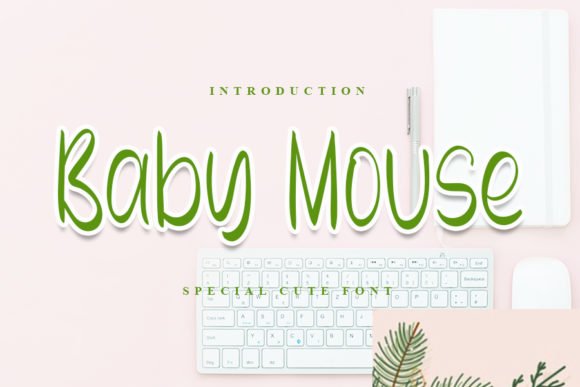
Meet Your New Best Friend: Baby Mouse Font
Do you remember the thrill of discovering that perfect font for a project, only to have it completely transform your design and make it shine? It’s a feeling that never gets old, and it’s exactly what happens when you meet the Baby Mouse Font.
This adorable display font is a tall and friendly face that’s sure to bring a smile to your readers’ faces. With its quirky charm and authentic feel, Baby Mouse Font is the perfect choice for a wide range of informal contexts, from social media graphics to children’s book illustrations. As a designer, you’ll love its versatility and the way it adds a touch of whimsy to your work.
Whether you’re looking to add some personality to your branding or simply want to create something fun and engaging, the Baby Mouse Font is a valuable addition to your design toolkit.
Baby Mouse Font Key Features
- Unique Characteristics: Whimsical and playful design, featuring cute mouse characters and elements
Review: Baby Mouse Font
I must say, I was initially drawn to Baby Mouse Font’s whimsical charm. The font’s rounded edges and playful aesthetic ✨ evoke a sense of innocence and childlike wonder. The font’s versatility also allows for a wide range of applications, from children’s books to greeting cards. ✨
However, I did encounter some limitations ⚠️. The font’s legibility, particularly at smaller font sizes, can be a concern. Some letters may appear too similar, making it challenging to read. Additionally, the font’s consistency across different platforms and devices can be inconsistent. ⚠️
Overall, I think Baby Mouse Font is a lovely choice for projects that require a playful, child-friendly tone. However, it may not be the best option for projects that demand high legibility or precision. If you’re looking for a font that adds a touch of whimsy to your design, Baby Mouse Font might be worth considering.
- Works well for: Children’s books, greeting cards, and other projects requiring a playful aesthetic
- Limitations: Legibility concerns at smaller font sizes, inconsistent consistency across platforms
Tips for Getting the Most Out of Baby Mouse Font
Use Baby Mouse Font for:
- Children’s books and educational materials
- Infant and toddler product branding
- Whimsical and playful designs
Remember to use the font in moderation, as its playful nature may not be suitable for all designs.
Alternatives to Baby Mouse Font
Pacifico is a beautiful, elegant script font perfect for wedding invitations, branding, and other designs that require a touch of sophistication. It has a similar cursive feel to Baby Mouse Font, but with a more refined and polished appearance.
Comparison: Pacifico is more formal and less playful than Baby Mouse Font, making it suitable for more mature designs.
Great Vibes is a modern, stylish script font ideal for designs that need a mix of elegance and playfulness. It has a similar feel to Baby Mouse Font, but with a more dynamic and energetic appearance.
Comparison: Great Vibes is more versatile and suitable for a wider range of designs, from branding to advertising, compared to Baby Mouse Font.
Carolyna Pro is a sophisticated, elegant script font perfect for luxury branding, high-end designs, and other projects that require a touch of sophistication and glamour. It has a similar refined feel to Baby Mouse Font, but with a more luxurious and exclusive appearance.
Comparison: Carolyna Pro is more formal and less playful than Baby Mouse Font, making it suitable for high-end designs and luxury branding.
Dancing Script is a beautiful, elegant script font perfect for wedding invitations, branding, and other designs that require a touch of romance and whimsy. It has a similar cursive feel to Baby Mouse Font, but with a more fluid and dynamic appearance.
Comparison: Dancing Script is more playful and less formal than Baby Mouse Font, making it suitable for designs that require a touch of whimsy and romance.